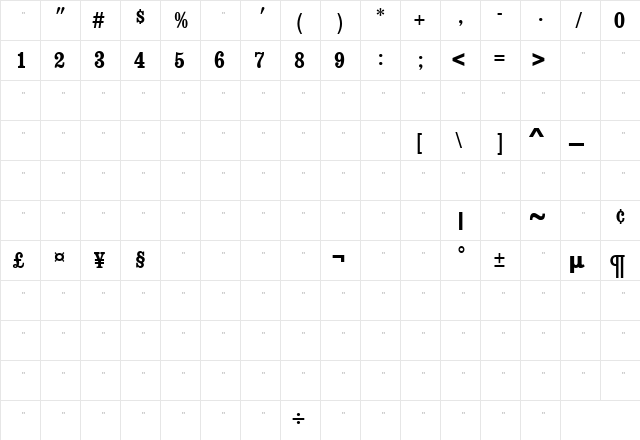
ConsortBoldCondensedTab Regular Font Preview
Design Context for ConsortBoldCondensedTab Typeface
ConsortBoldCondensedTab offers clean, dependable letterforms without strong stylistic allegiance, making it a practical choice for designers who need flexibility. The heavy weight commands attention and anchors typographic hierarchies. Its narrow stance lets it pack a punch even in space-constrained designs.